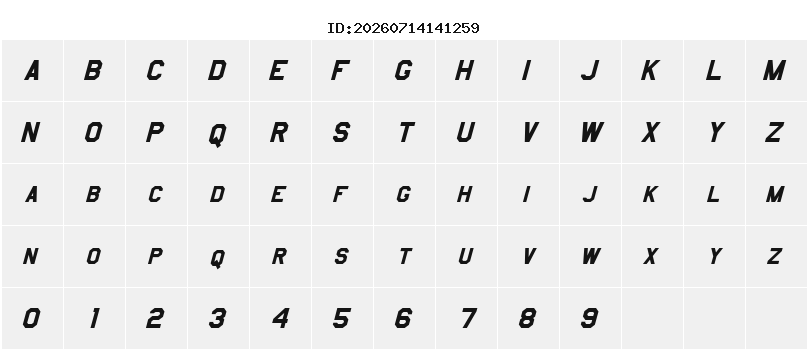
• Font Name: Jefferies
• Full Font Name: Jefferies Bold Italic
• Designer: Neale Davidson
About Jefferies.ttf
Jefferies.ttf is a modern, elegant sans-serif font designed for ultimate readability and visual harmony. Perfect for branding, headlines, web design, and print materials.